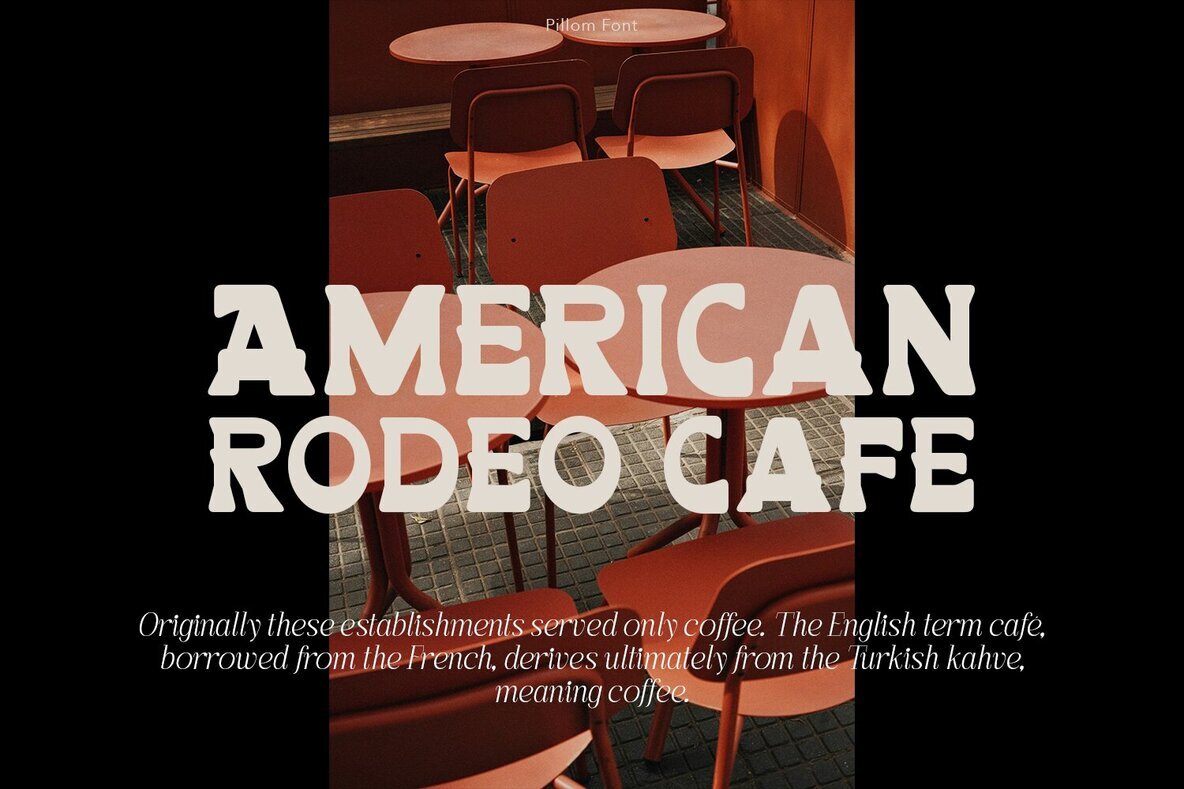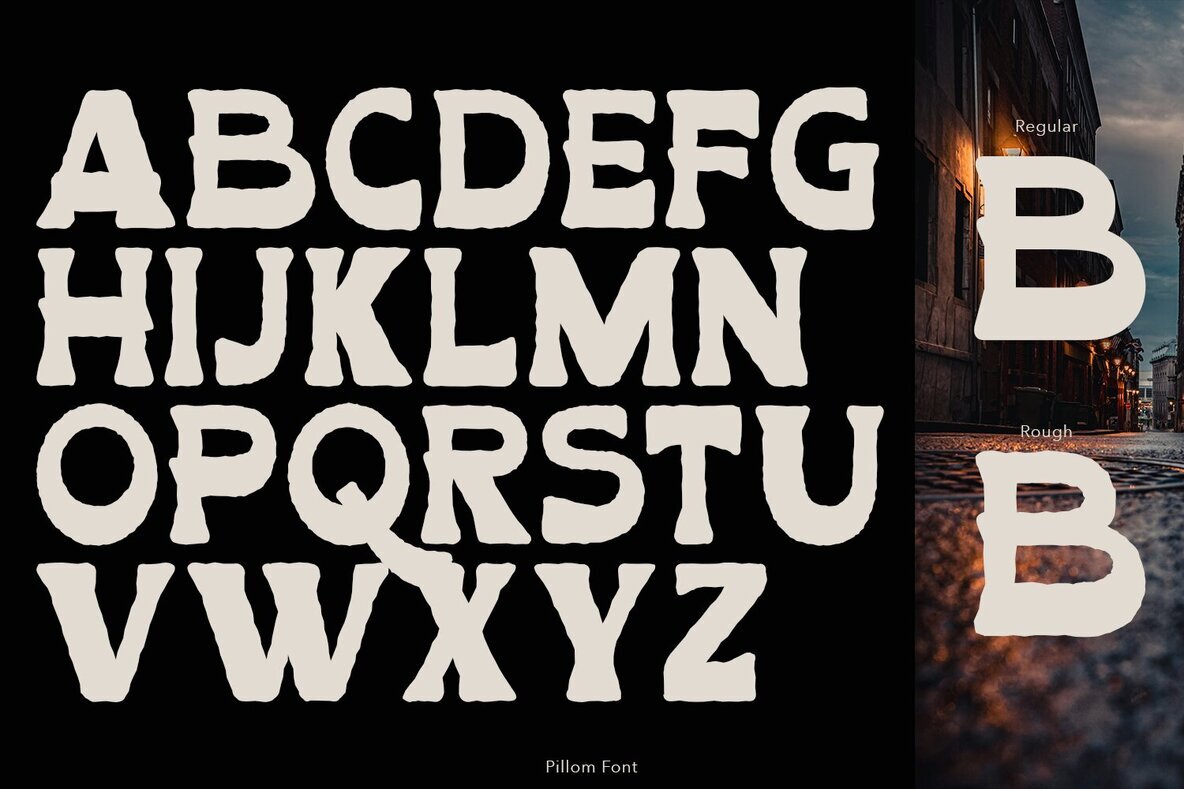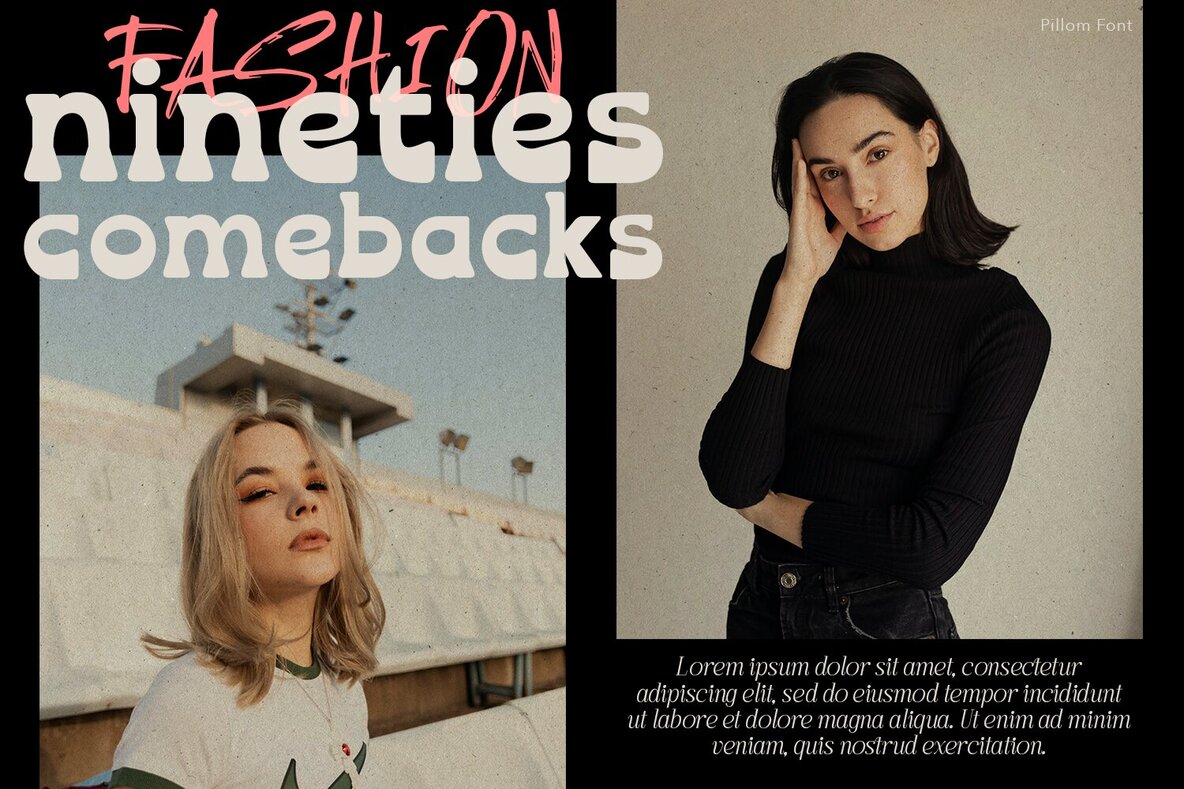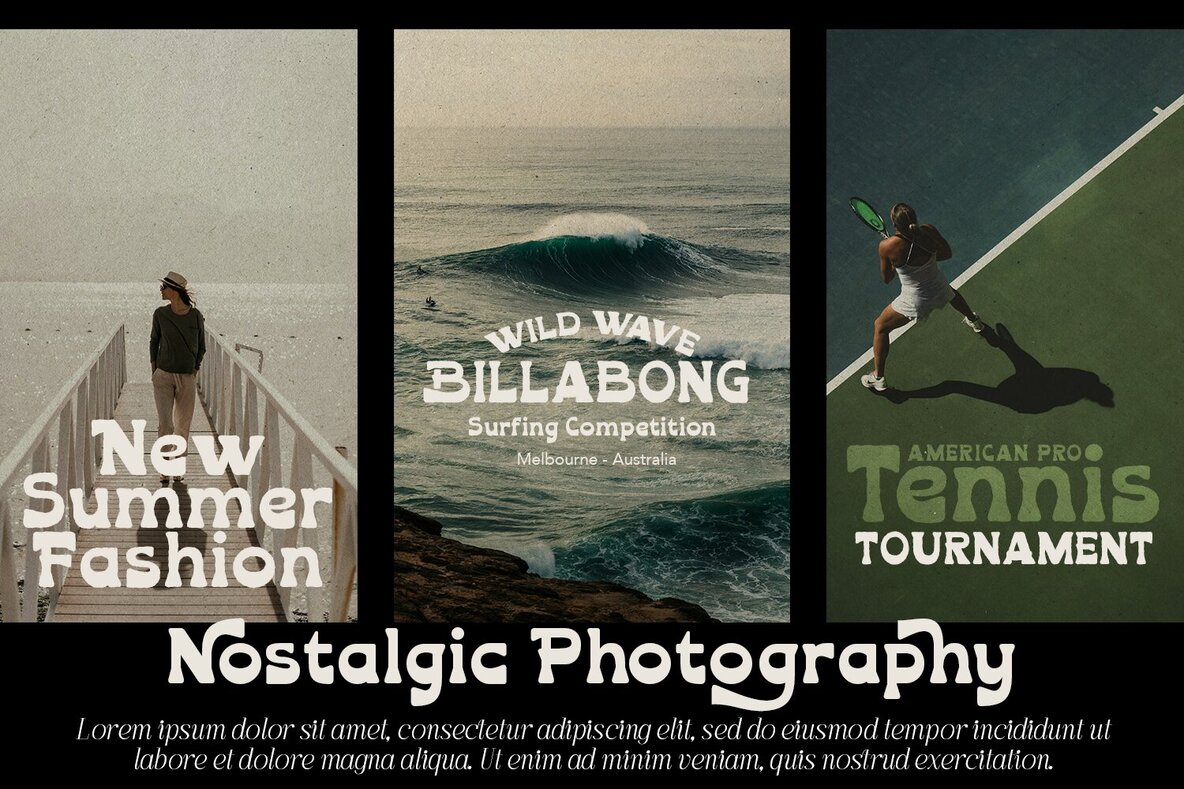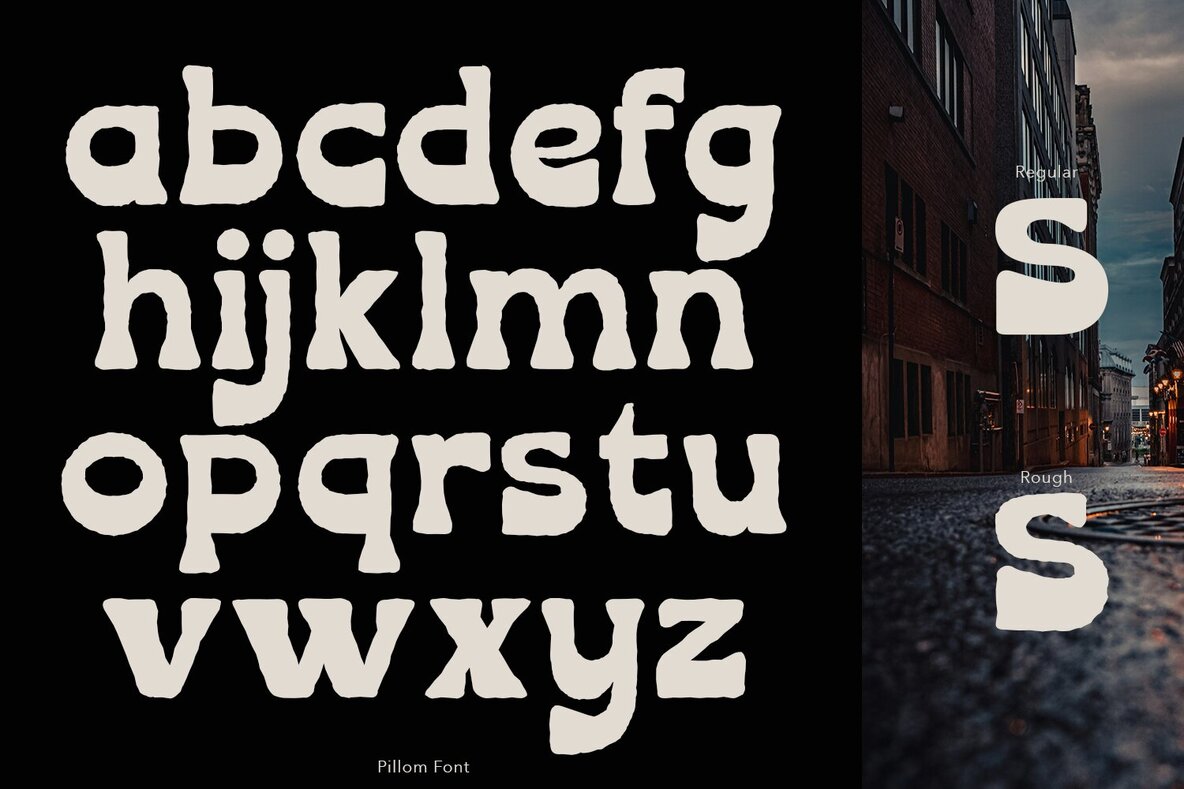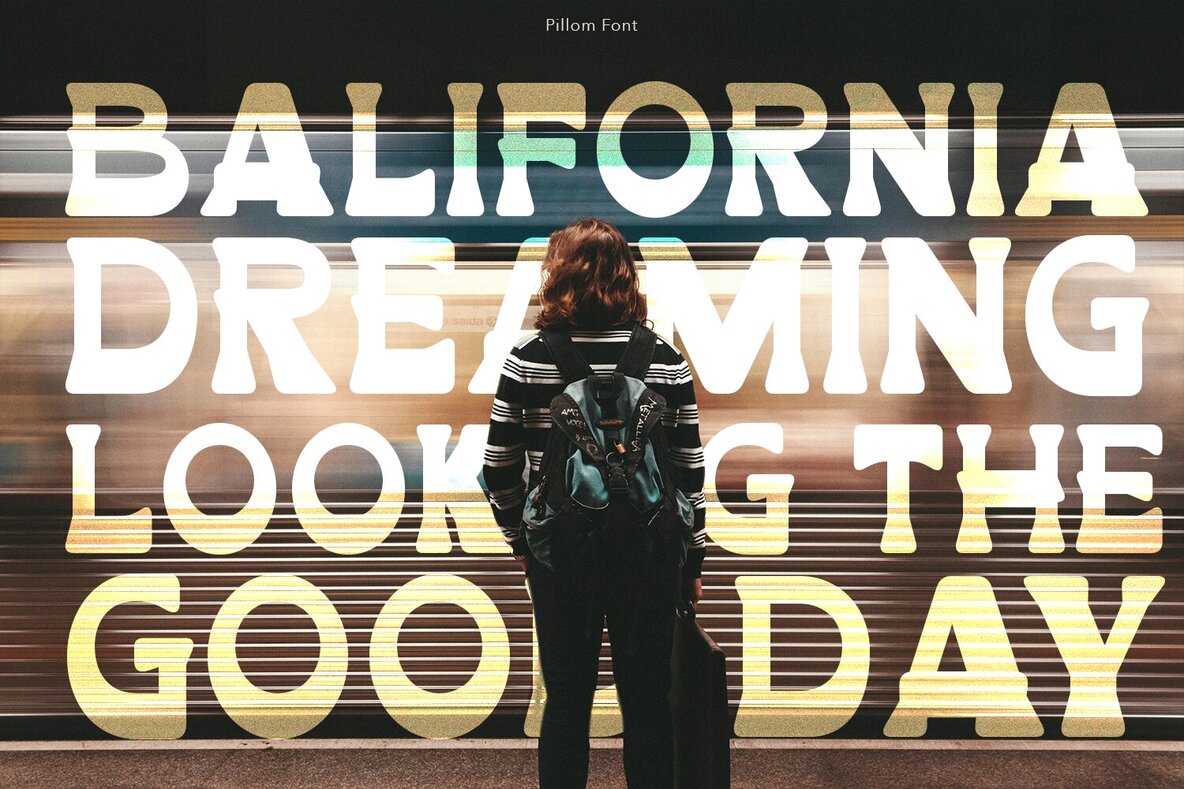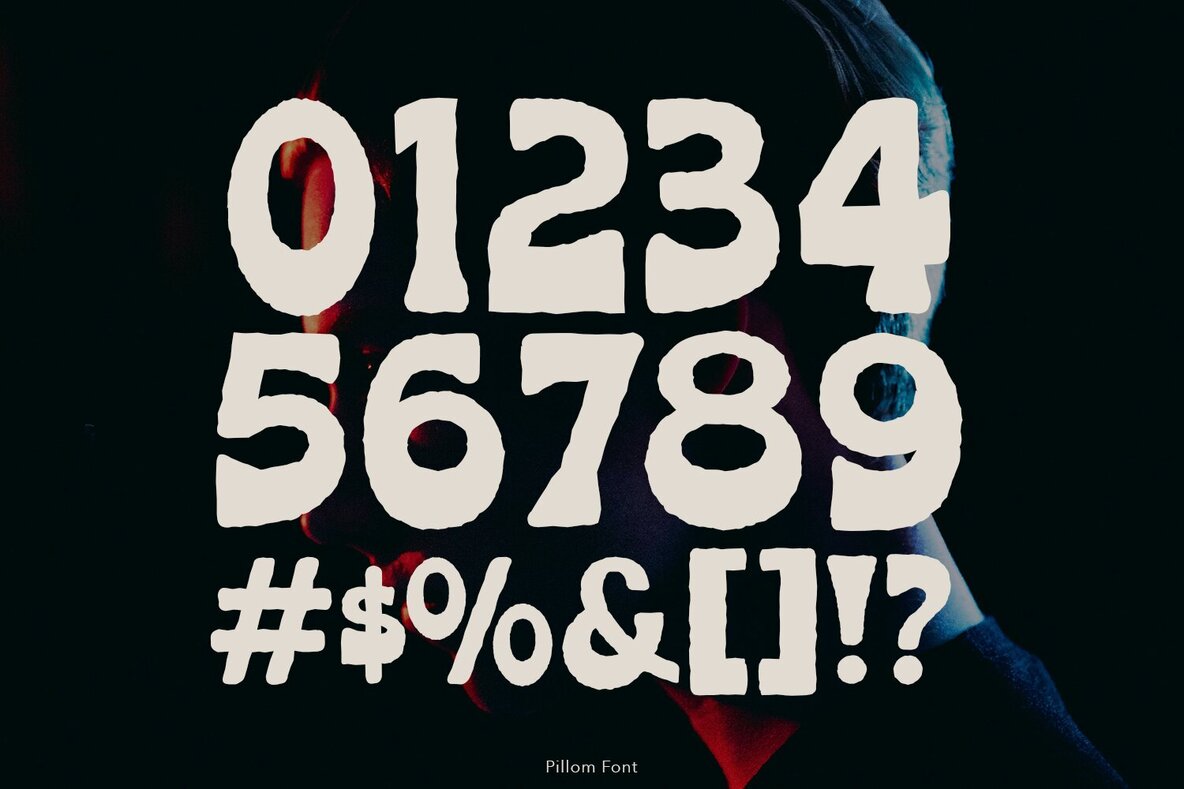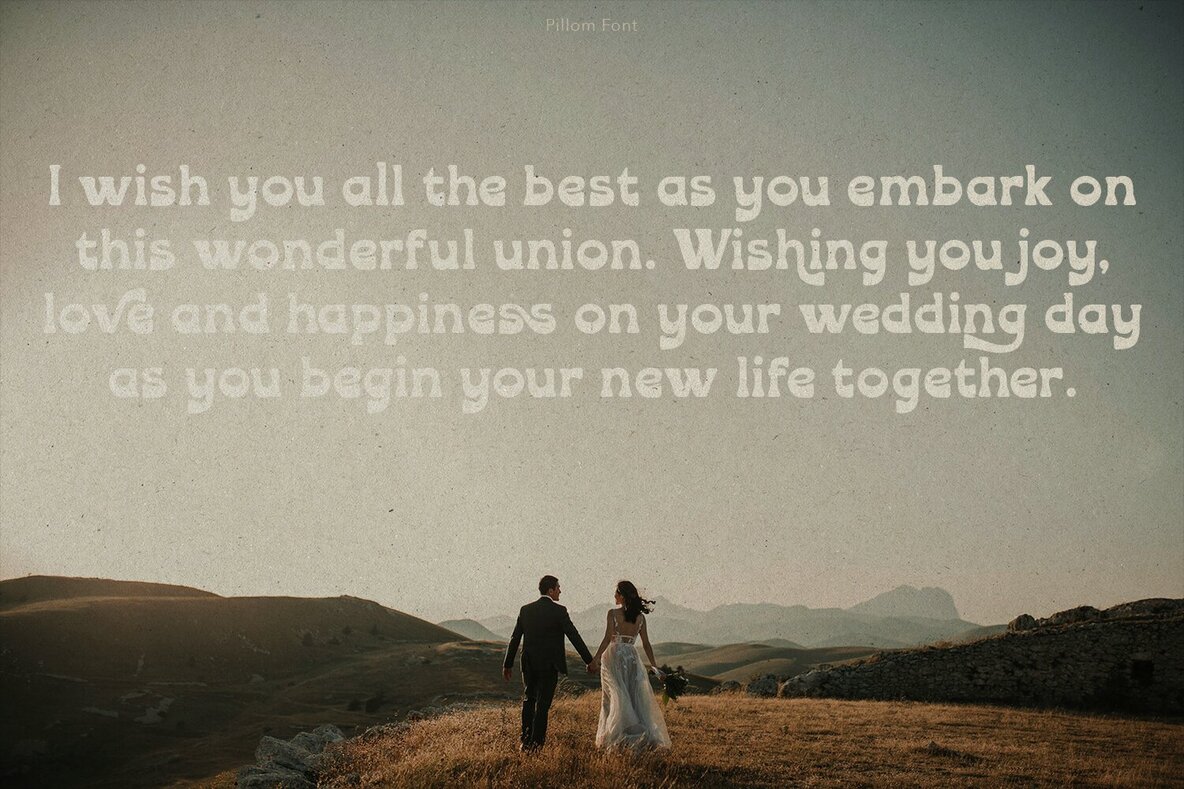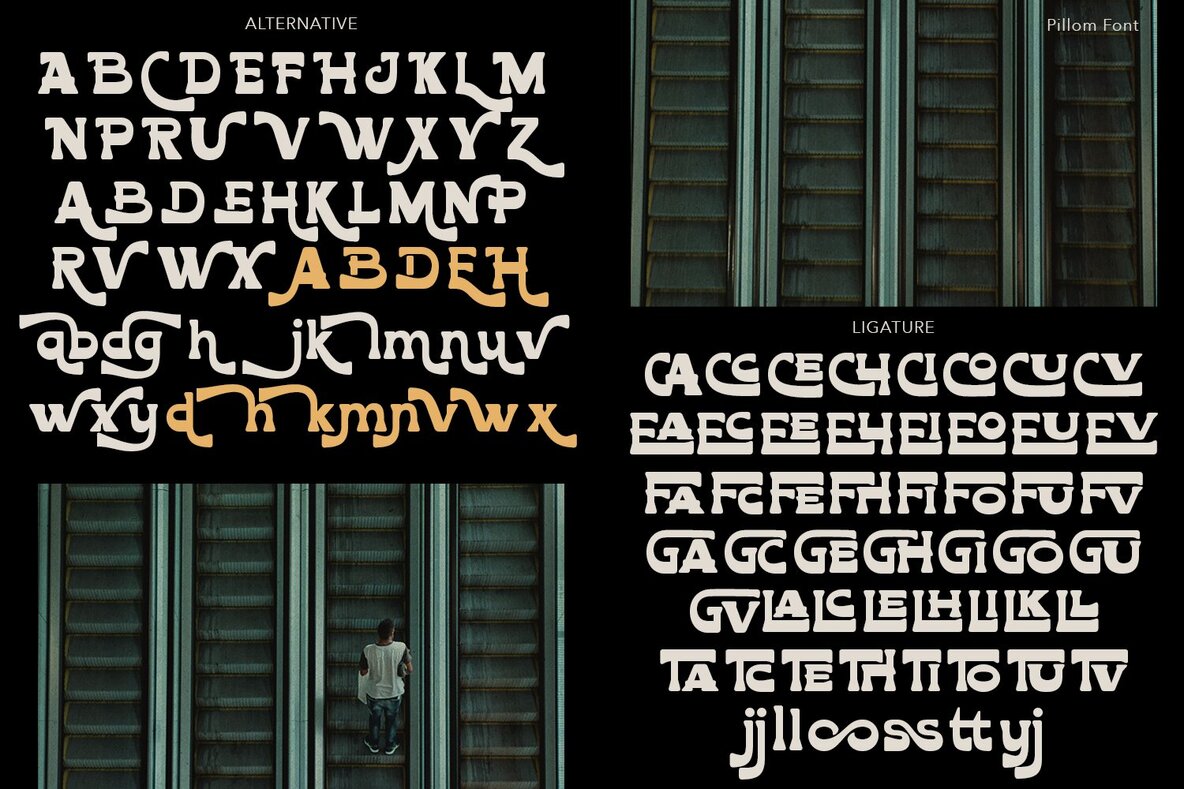
Pillom Font
Pillom offers a bold and playful vintage western typeface that draws inspiration from the cowboy era. This typeface brings a unique blend of nostalgia and creativity to your design projects, making it ideal for those seeking a touch of the Old West. Available in regular, rough, and ready styles, Pillom provides versatility and a distinctive aesthetic. Its robust character makes it perfect for headlines, posters, branding, and any project that requires a strong visual impact.
Additionally, for users looking to explore the full range of its design potential, additional characters can be accessed through the glyphs panel in your design program. This feature allows for further customization, enhancing your creative possibilities. With its distinctive flair and vintage appeal, Pillom is well-suited for designers aiming to infuse a sense of classic charm into modern projects.